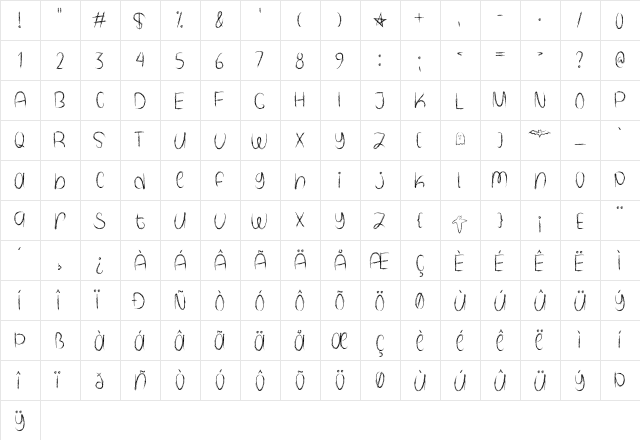
Spooky Halloween Regular
Design Context for Spooky Halloween Typeface
Spooky Halloween is a composed and adaptable typeface that performs quietly and consistently across a wide range of design contexts.